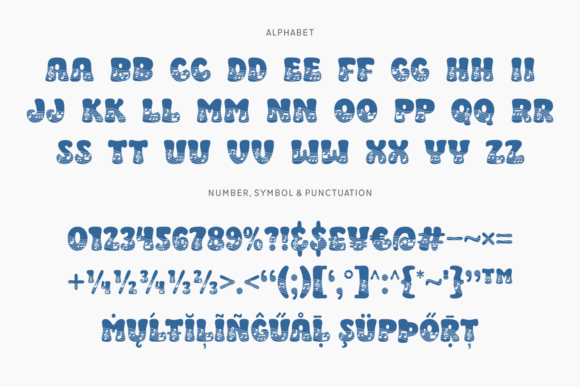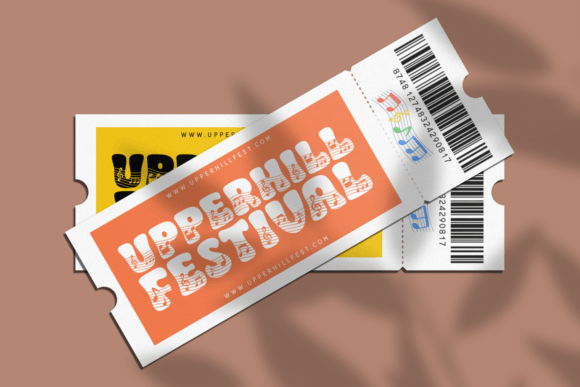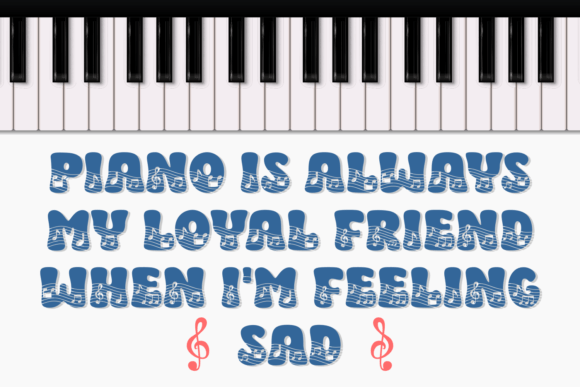
Introduction to Ohyte Font
Ohyte is a playful and whimsical display font.
Let your imagination match the grooviness of this typeface Use it for invitations, thank you cards, quotes, greeting cards, logos, business cards, and any other design.
Key Features of Ohyte Font